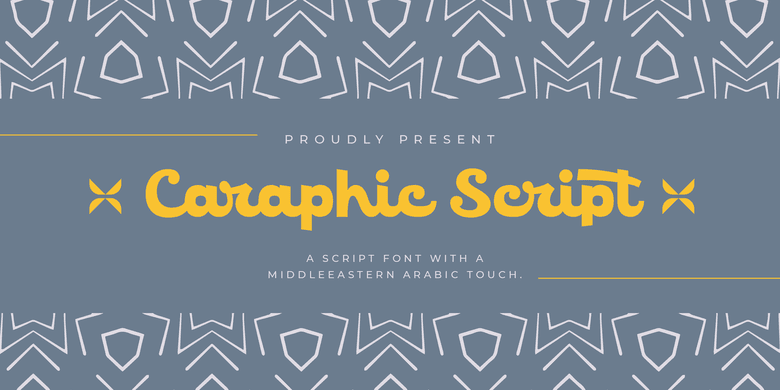
Caraphic Script Font
Caraphic Script is a beautifully designed typeface that blends the sophistication of Arabic calligraphy with Middle Eastern design elements. The font features bold strokes that exude weighty grace, maintaining clarity for accessibility without sacrificing style. Its design allows it to serve as both decorative and professional, making it an ideal choice for logotypes, branding, and other creative applications that require a fusion of cultures.
This font is more than just a design tool; it is a bridge between cultures, seamlessly combining Latin and Arabic scripts. This ability to connect different cultures through one elegant typeface makes it uniquely suited for a wide range of global design projects. Its versatility allows it to communicate with sophistication to people across various linguistic and cultural backgrounds.
Caraphic Script is built using OpenType features, which include contextual alternatives, ligatures, and a variety of other customizable options, giving users full control over their typographic choices. Whether you’re designing for a specific region or an international audience, this font provides the flexibility needed to create polished, professional designs.
With support for multiple languages, including those across Northern Europe, South Africa, America, and South-East Asia, Caraphic Script is designed to meet the needs of a global market. It also includes all the necessary punctuation marks and numbers, making it a comprehensive typeface for a variety of creative projects.